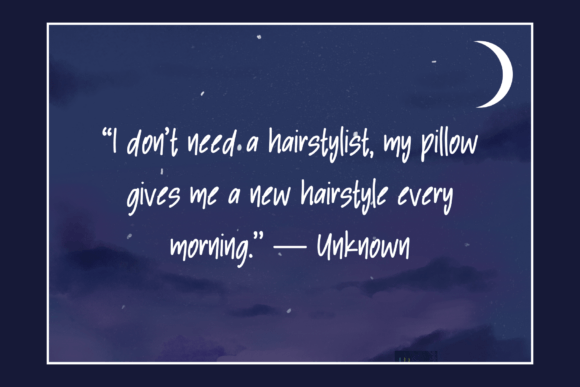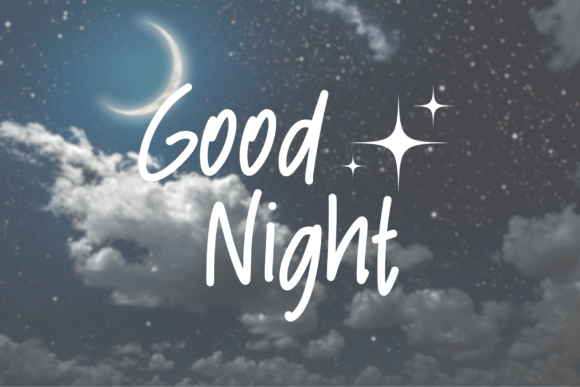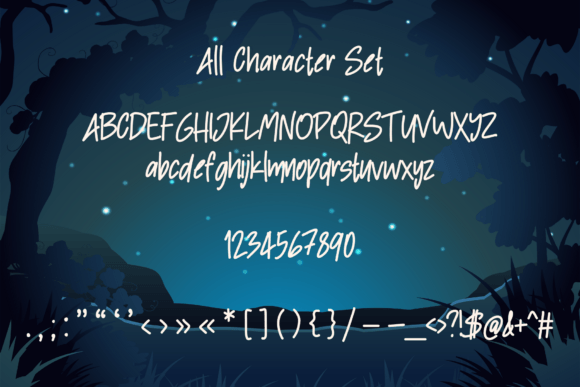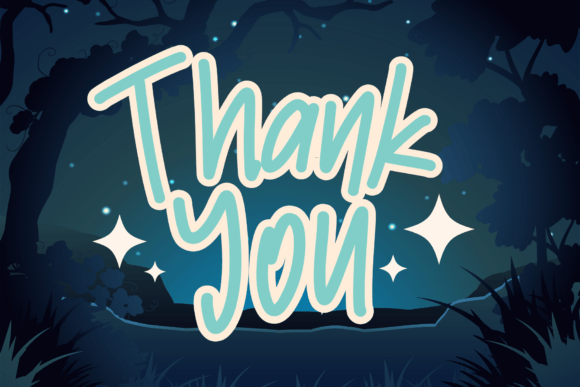
Dreamy Font: Add a Touch of Whimsy to Your Designs
Are you looking for a font that embodies playfulness and authenticity? Look no further than Dreamy, a cute handwritten font that’s perfect for adding a touch of whimsy to your designs. Whether you’re a designer, crafter, or DIY enthusiast, Dreamy is the ideal choice for a wide range of projects, from blog posts and logos to invitations and decorations.
The Charm of Dreamy Font
Dreamy Font is a beautiful, handcrafted font that’s designed to bring a sense of fun and personality to your designs. Its playful, cursive strokes and charming letterforms make it perfect for creating eye-catching and engaging content. The font’s unique character and whimsical feel make it stand out from more traditional fonts, adding a touch of magic to any project.
Uses for Dreamy Font
Dreamy Font is incredibly versatile, making it suitable for a wide range of projects and applications. Here are just a few ideas to get you started:
- Blog Posts: Add a personal touch to your blog posts with Dreamy Font. Use it for headings, titles, or even entire paragraphs to create a more playful and engaging reading experience.
- Logos and Branding: Create a unique and memorable brand identity with Dreamy Font. Its whimsical feel makes it perfect for logos, business cards, and other branding materials.
- Ads and Marketing Materials: Grab attention with Dreamy Font in your ads and marketing materials. Its playful character is sure to stand out and leave a lasting impression.
- Invitations and Greeting Cards: Add a touch of personality to your invitations and greeting cards with Dreamy Font. Its charming letterforms make it perfect for special occasions like birthdays, weddings, and holidays.
- Planners and Photo Albums: Create beautiful and functional planners and photo albums with Dreamy Font. Its whimsical feel makes it perfect for adding a personal touch to your designs.
- Decorations: Use Dreamy Font to add a touch of personality to your decorations, from wall art to DIY projects.
Why Choose Dreamy Font?
So why choose Dreamy Font for your designs? Here are just a few reasons:
- Unique Character: Dreamy Font has a unique and whimsical character that sets it apart from more traditional fonts.
- Playful Feel: Dreamy Font embodies playfulness and authenticity, making it perfect for designs that need a touch of personality.
- Versatility: Dreamy Font is incredibly versatile, making it suitable for a wide range of projects and applications.
Tips for Using Dreamy Font
Here are a few tips for getting the most out of Dreamy Font:
- Use it Sparingly: While Dreamy Font is perfect for adding a touch of personality to your designs, it’s best to use it sparingly. Use it for headings, titles, or accents to create visual interest.
- Pair it with Other Fonts: Dreamy Font pairs well with other fonts, so don’t be afraid to experiment with different combinations. Try pairing it with a clean, sans-serif font for a bold and playful look.
- Experiment with Colors: Dreamy Font looks great in a variety of colors, so don’t be afraid to experiment. Try using it in bright, bold colors to add a pop of personality to your designs.
Dreamy Font is a beautiful, handcrafted font that’s perfect for adding a touch of whimsy to your designs. Its playful, cursive strokes and charming letterforms make it perfect for a wide range of projects, from blog posts and logos to invitations and decorations. With its unique character, playful feel, and versatility, Dreamy Font is the ideal choice for designers, crafters, and DIY enthusiasts looking to add a touch of personality to their designs.